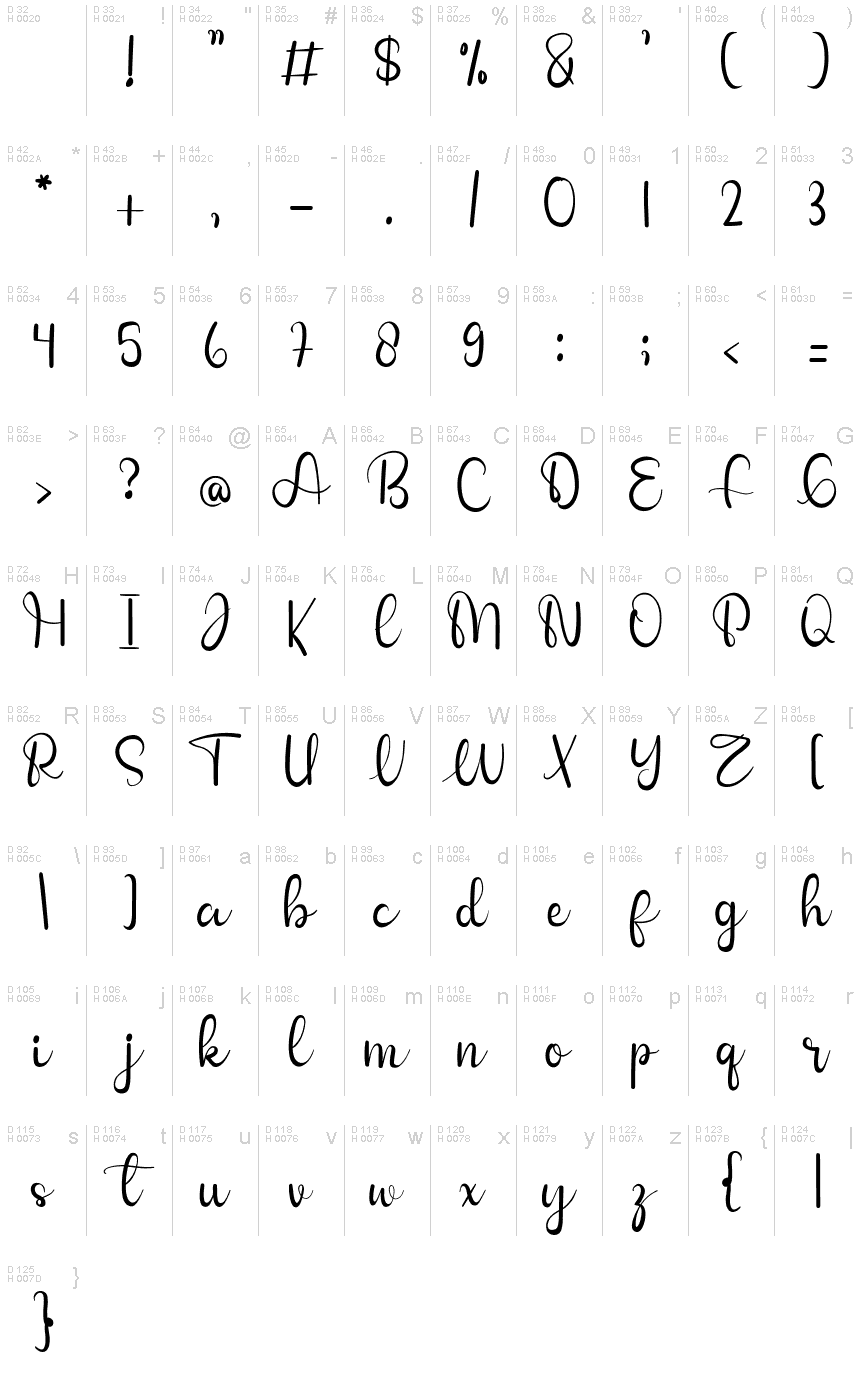
lolita
Lolita, a charming semi-light handwritten font by Share Font, adds a whimsical touch to any project. With its delicate strokes and playful curves, it's perfect for greeting cards, wedding invitations, and children's book covers. This font captures the essence of elegance and innocence, making it a delightful choice for branding designs that target feminine and creative audiences. Lolita effortlessly conveys warmth and friendliness in social media graphics or blog headers. Bring your projects to life with this enchanting semi-light typeface that will surely leave a lasting impression.